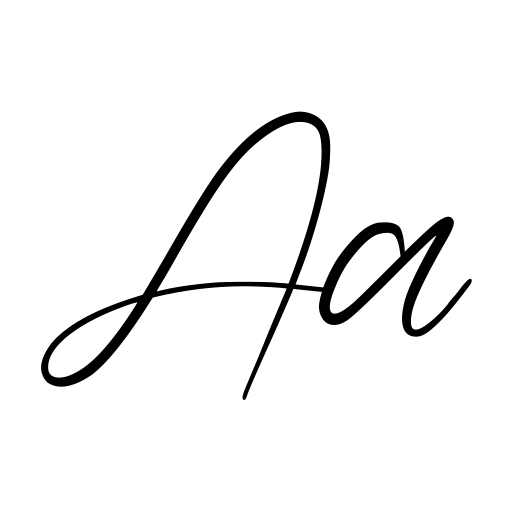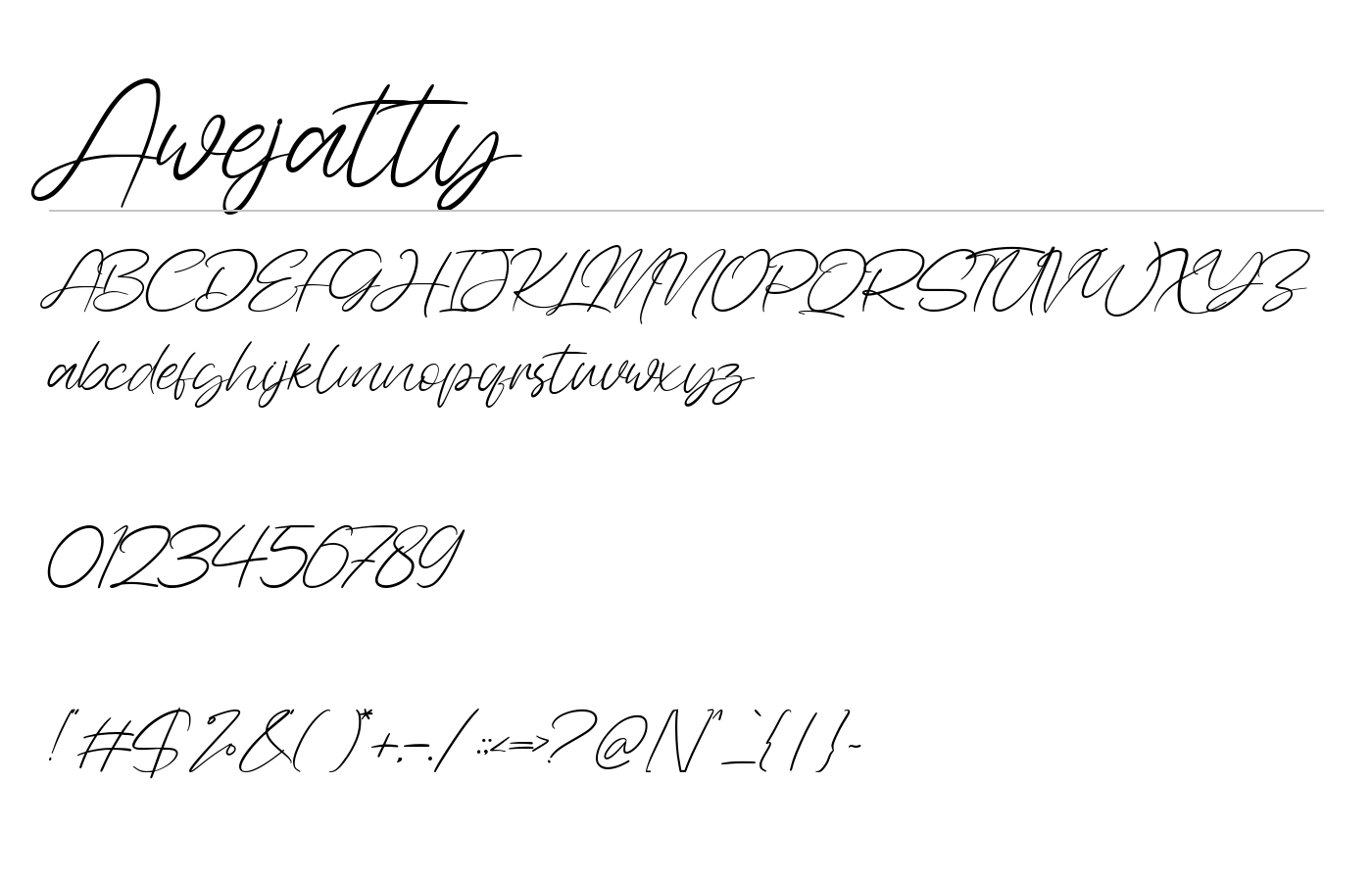
Awejatty is a delicate, elegant script font with a thin, flowing stroke that mimics natural handwriting. Its light weight and graceful curves give it a refined, sophisticated feel, making it perfect for invitations, branding, and any design that needs a touch of personal charm and elegance. This font works well in contexts where a stylish, intimate look is desired, especially in fashion, beauty, and luxury projects.
Awejatty Font
About Awejatty Font